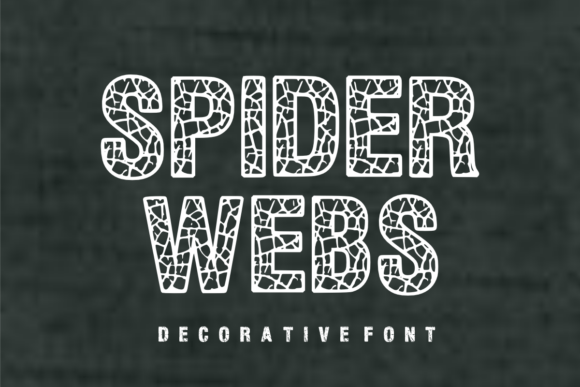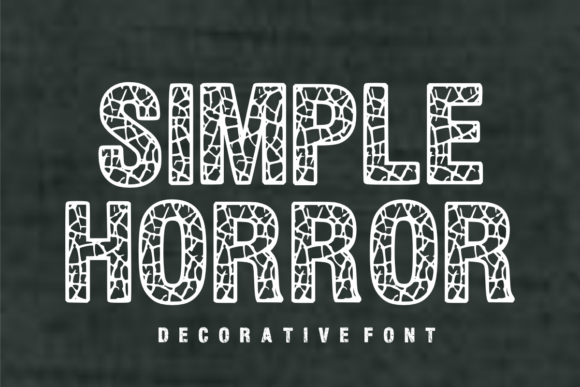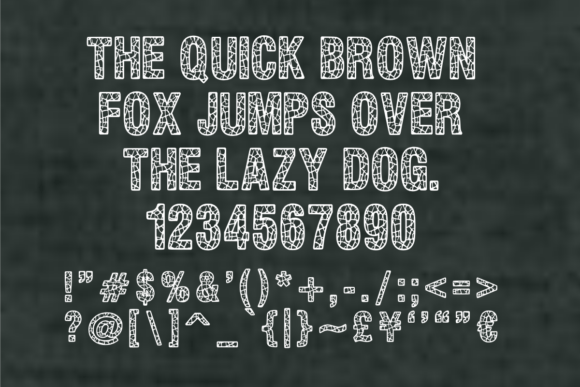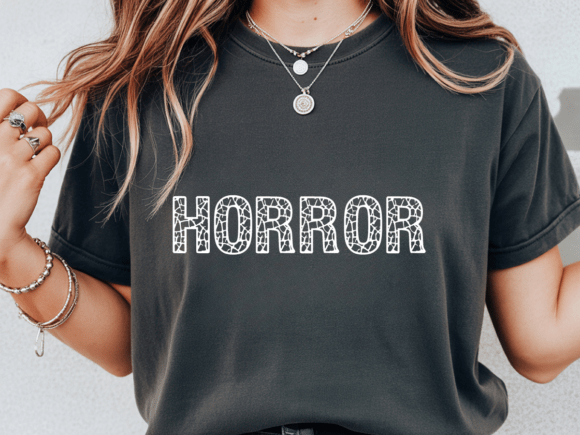
Introducing Cracked Stone Font: Unleash the Power of Nature in Your Designs
Are you tired of using the same old fonts in your designs? Do you want to add a touch of ruggedness and organic feel to your projects? Look no further than the Cracked Stone font! This bold display font is designed to mimic the look of weathered rock, ancient ruins, and dry earth, giving your designs a unique and impactful feel.
The Unique Features of Cracked Stone Font
The Cracked Stone font is designed to provide a high-detail cracked texture that adds a professional hand-crafted touch to your designs. Every letter is carefully crafted to give your project a rugged, organic, and impactful feel. The font features a solid structure that ensures readability, making it perfect for a variety of design projects, from outdoor adventure brands to dramatic movie posters and heavy metal album covers.
Whether you are a designer, crafter, or DIY enthusiast, the Cracked Stone font is the perfect addition to your creative toolkit. The font is designed to be versatile and can be used for a variety of projects, including:
- Outdoor adventure brand designs, such as logos, posters, and brochures
- Dramatic movie posters and title sequences
- Heavy metal album covers and merchandise
- DIY craft projects, such as handmade cards and gift tags
Why Choose Cracked Stone Font?
So, why choose the Cracked Stone font for your designs? Here are just a few reasons:
- Unique and eye-catching design: The Cracked Stone font features a unique and eye-catching design that is sure to grab attention.
- High-detail cracked texture: The font’s high-detail cracked texture adds a professional hand-crafted touch to your designs.
- Readable and versatile: The font’s solid structure ensures readability, making it perfect for a variety of design projects.
Tips and Tricks for Getting the Most Out of Cracked Stone Font
Here are a few tips and tricks for getting the most out of the Cracked Stone font:
- Experiment with different colors: The Cracked Stone font looks great in a variety of colors, from earthy tones to bold and bright colors.
- Use it with other textures: The font’s textured design pairs well with other textures, such as wood or stone.
- Play with font sizes: The Cracked Stone font looks great in a variety of font sizes, from large and bold to small and subtle.
| Font Name | Cracked Stone Font |
| Author | Sahira Studio |
In conclusion, the Cracked Stone font is a unique and versatile font that is perfect for designers and crafters looking to add a touch of ruggedness and organic feel to their designs. With its high-detail cracked texture, solid structure, and readability, this font is sure to grab attention and add a professional hand-crafted touch to your projects. So why wait? Download Cracked Stone today and unleash the power of nature in your designs!
🗿️ Cracked Stone – Bold Distressed & Textured Display Font 🗿️